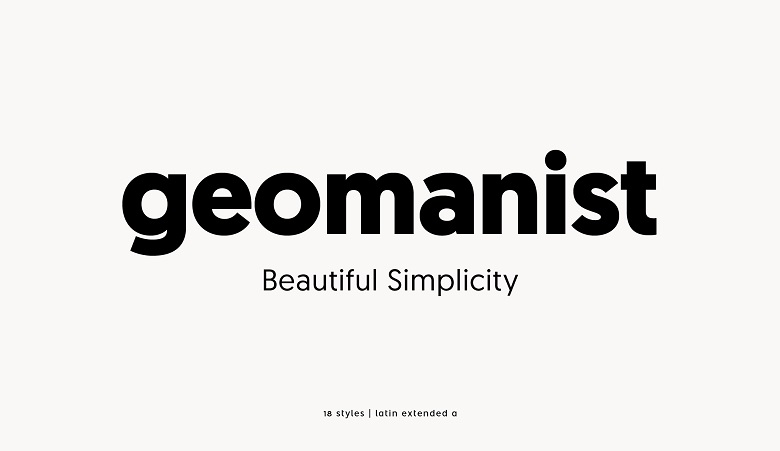
Geomanist Font Family
Geomanist Font
You don’t have to waste time on finding or creating a specific font for your design project, I suggest you to use a typeface which will be suitable for all your works. Introducing Geomanist Font Family! Geomanist created and posted by atipo ®. You can use it for branding projects, labels, apparels, typography and much more and the font is compatible with all western languages.
Geomanist Sans Serif Font Family